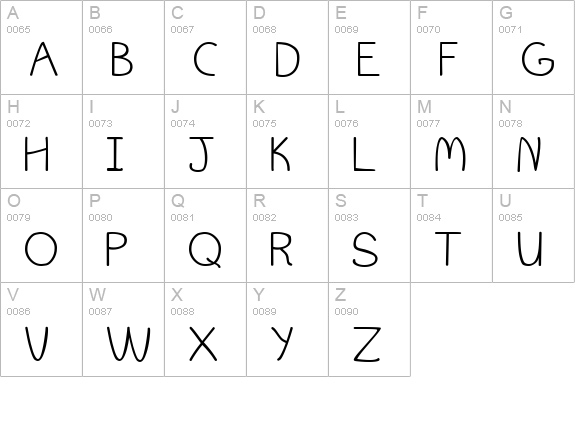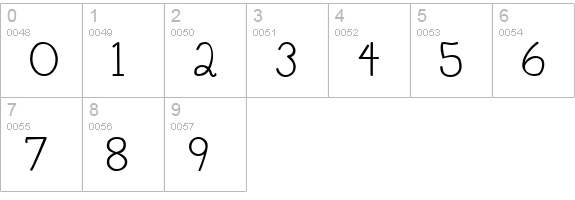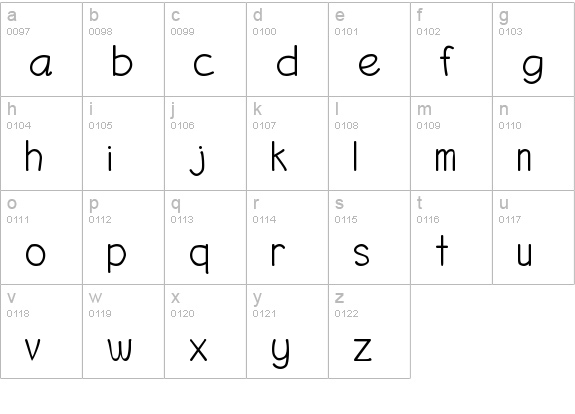
Duncan Regular Font Details
Duncan Regular is the standard, neutral variant in the Duncan typeface family \xE2\x80\x94 well suited to general body text, paragraphs, and standard typographic work.
The Duncan Regular font is a versatile and classic typeface that exudes elegance and sophistication. With its clean lines and timeless design, this font is suitable for a wide range of projects, from branding to editorial designs. Its balanced proportions and subtle details make it a perfect choice for creating a polished and professional look. What makes Duncan Regular font even more appealing is that it is available for free download at FontsMarket.com. Whether you are a designer looking to add a touch of sophistication to your work or a business owner in need of a sleek and stylish font for your branding, Duncan Regular is the perfect choice. Download it today and elevate your projects with this elegant typeface.